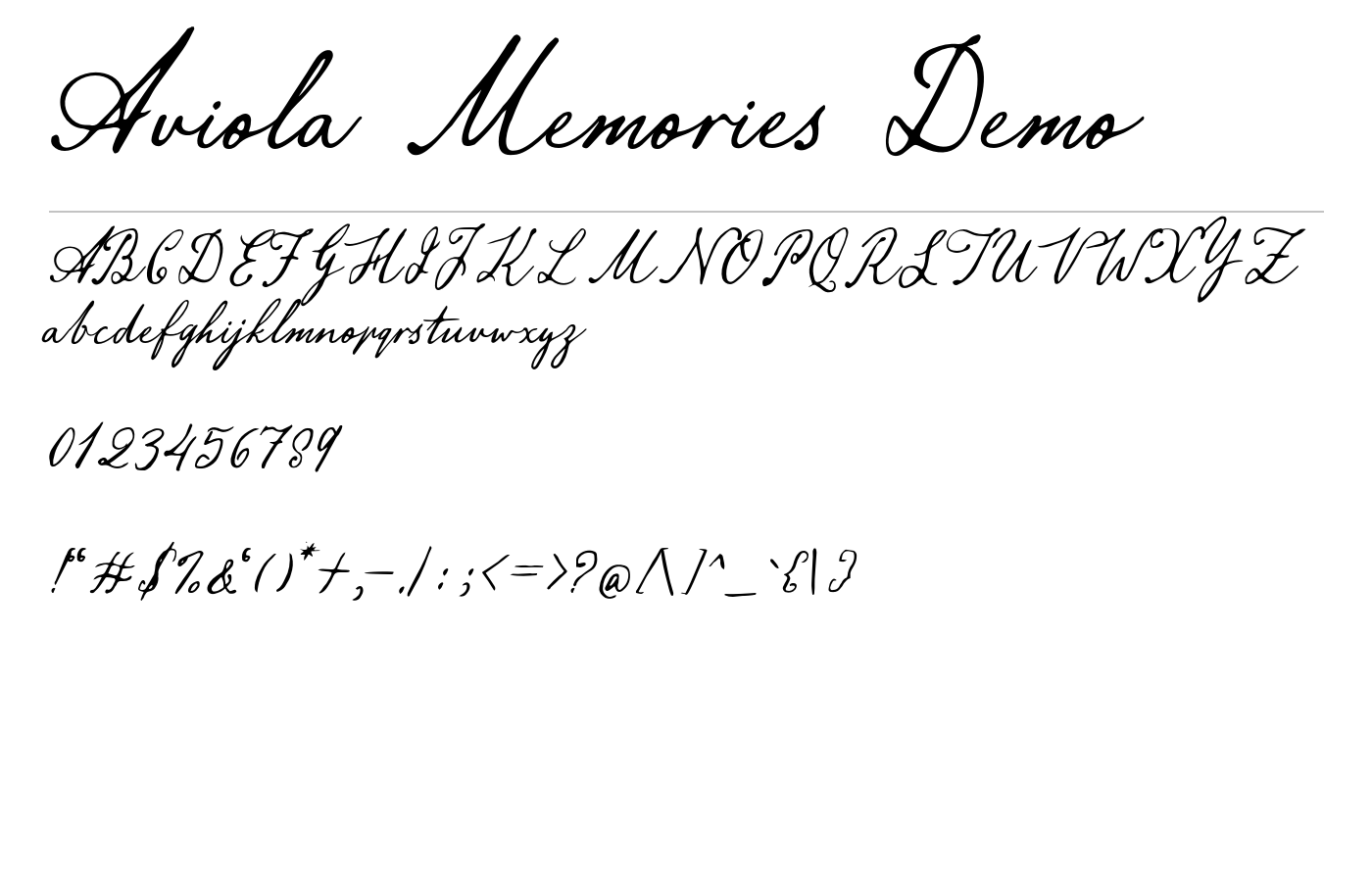
Aviola Memories Demo is an elegant script font with a light, delicate stroke that mimics classic handwritten calligraphy. Its slender, flowing letterforms with graceful curves bring a timeless, romantic feel, making it perfect for invitations, branding, and any design needing a personal, refined touch. This font works best in projects that seek to communicate elegance and nostalgia in a sophisticated yet approachable way.
Aviola Memories Demo Font
About Aviola Memories Demo Font